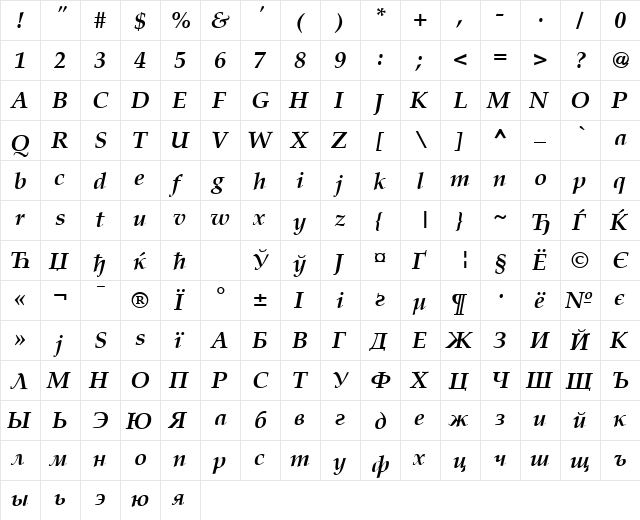
AGPalatial BoldItalic
Design Context for AGPalatial Typeface
AGPalatial offers clean, dependable letterforms without strong stylistic allegiance, making it a practical choice for designers who need flexibility. Its italic angle brings a sense of urgency and motion to the letterforms. Its bold stroke weight gives it real presence on the page.
Pro Tip: Try AGPalatial for annotation and caption copy alongside an upright companion — the contrast in angle creates a dynamic but ordered typographic system.